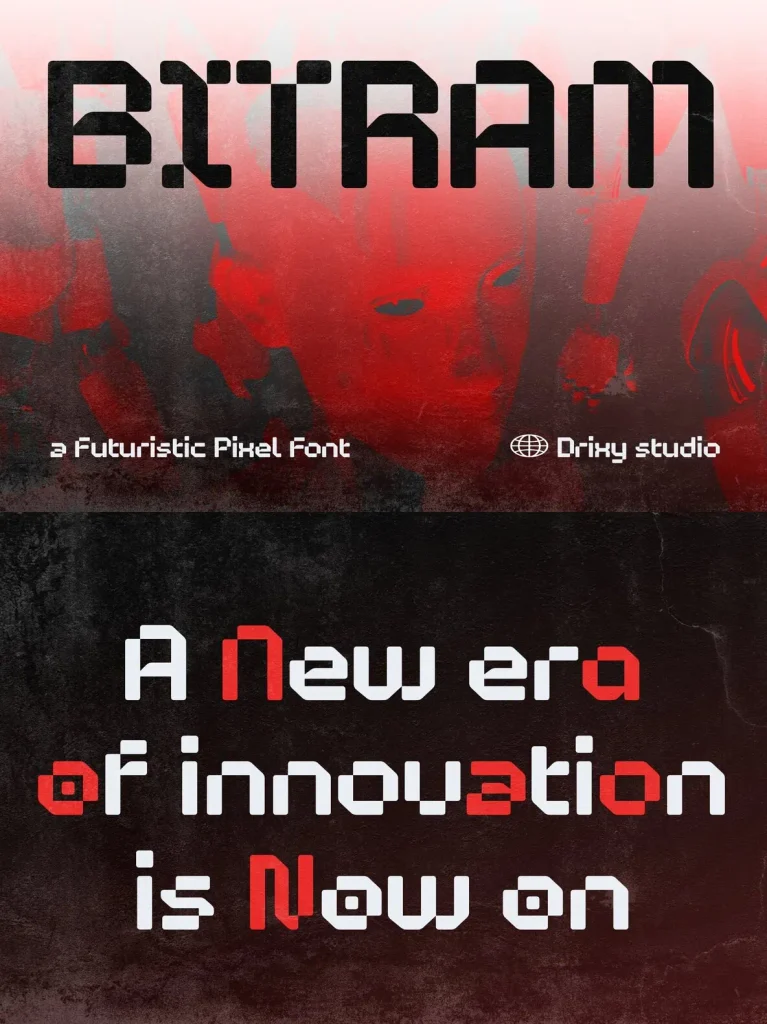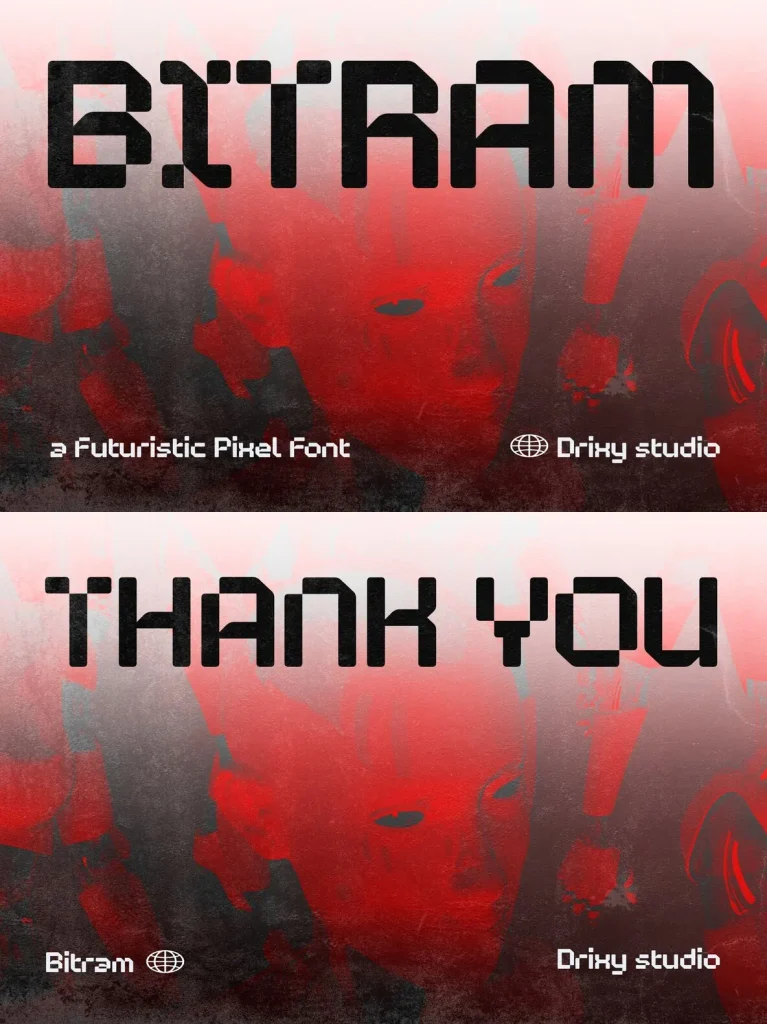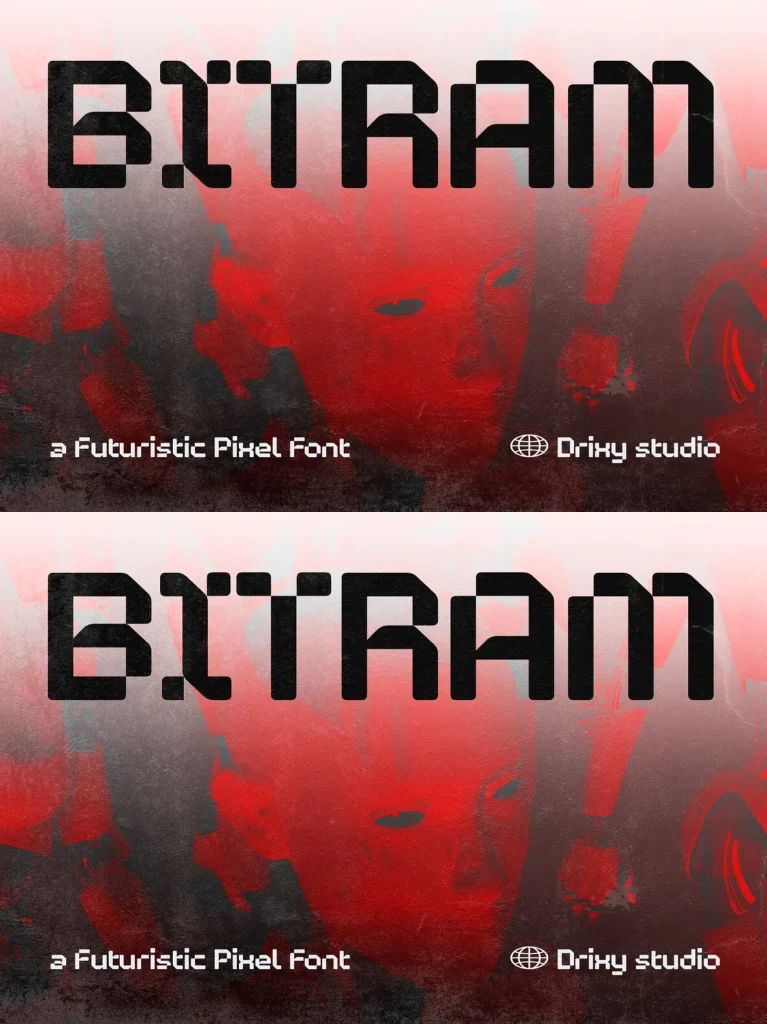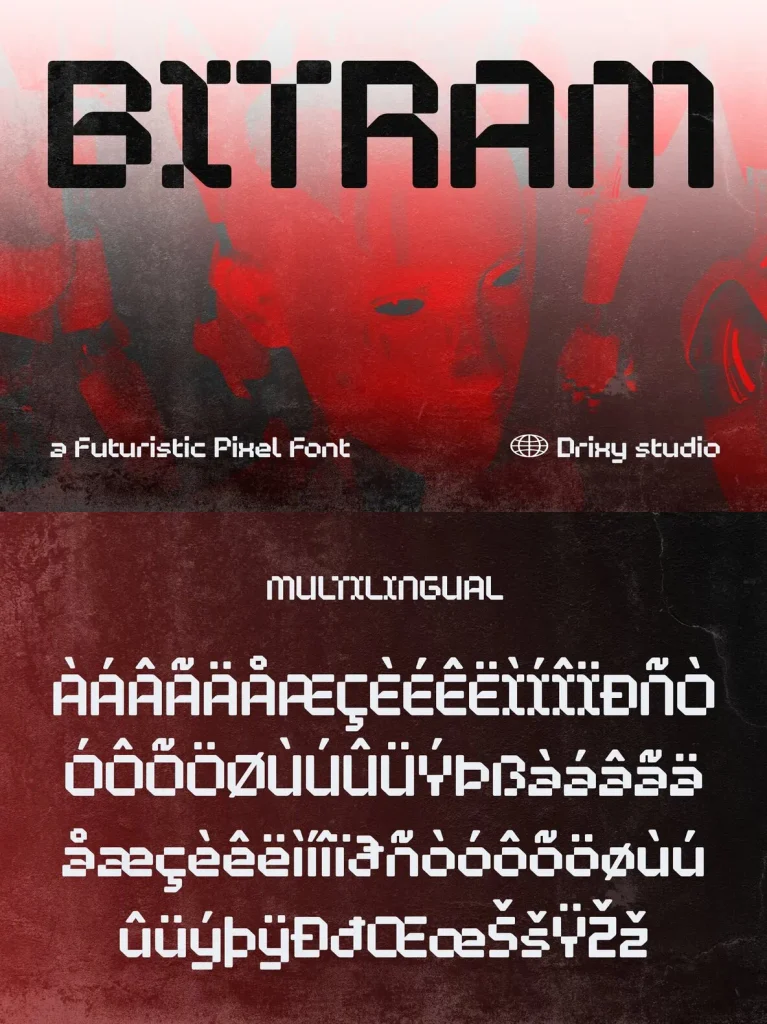
Bitram-A — Abstract Pixels, Cyber Sharp
Bitram-A is a futuristic pixel font with an abstract pixel design approach. It combines sharp geometric structures with experimental digital aesthetics, drawing from retro gaming visuals, cyber interfaces, and futuristic technology. The result gives traditional pixel typography a more modern and abstract style while keeping a bold, modular presence.
Its strong forms make Bitram-A well suited for posters, gaming titles, sci-fi branding, esports projects, album covers, UI concepts, and creative display designs. Designed with an abstract pixel character, it creates a clear technological atmosphere and a distinctive futuristic identity. Use it for digital branding or experimental visual projects that need a cyber-inspired edge with unique abstract pixel appeal.